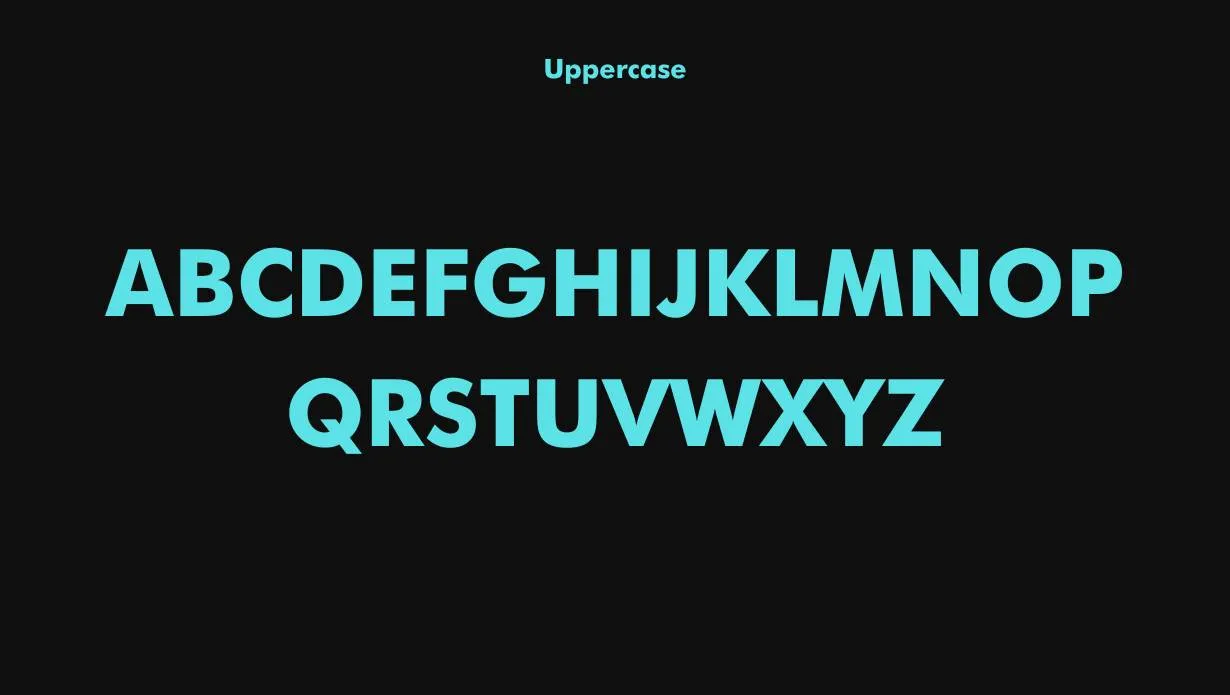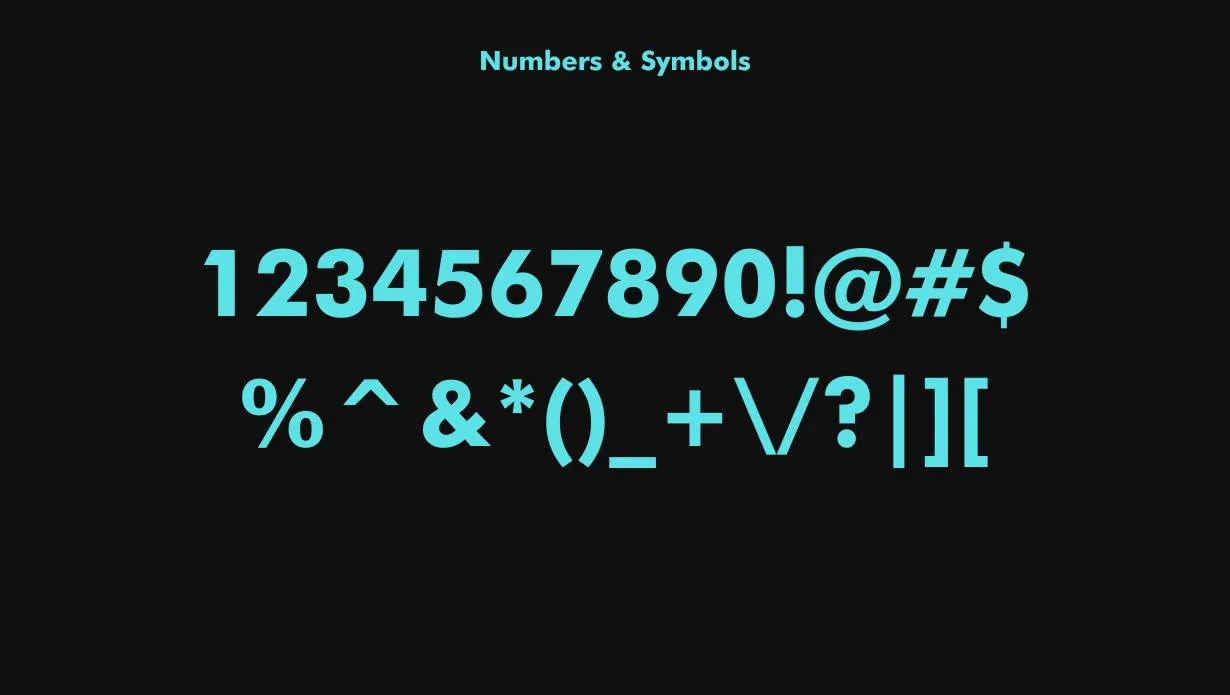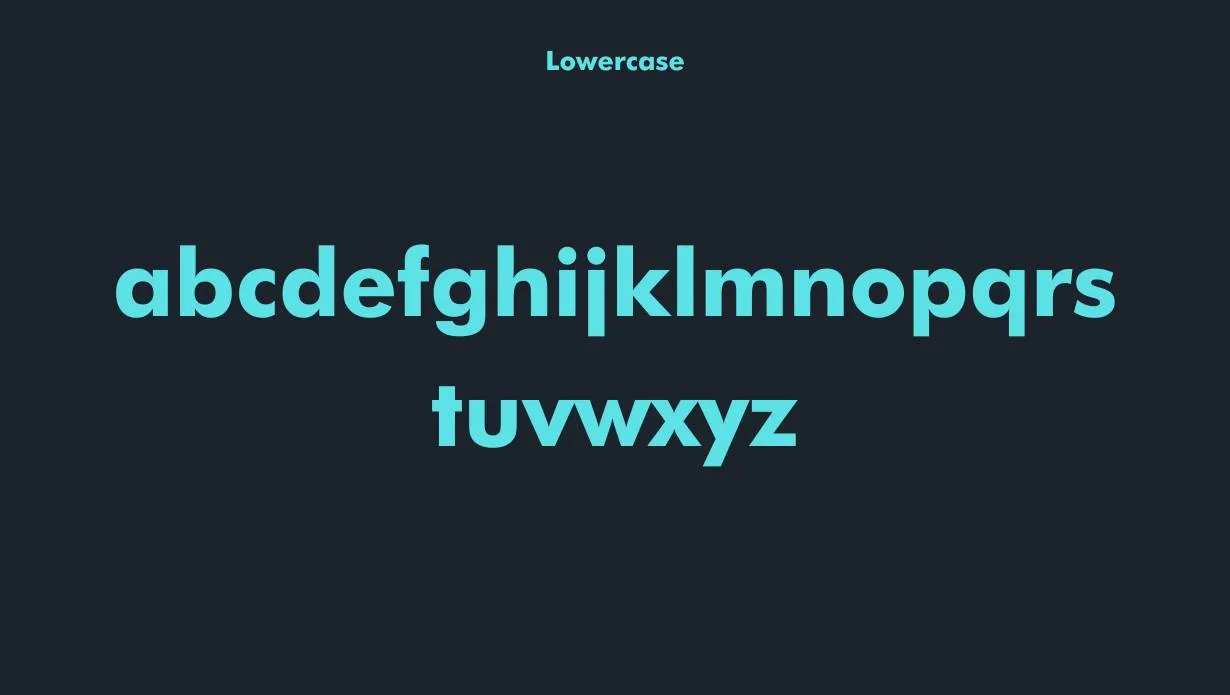
Hulu is a Sans-Serif font with neat and clean features. It has high readability due to its clear look. This font is designed for a TV show VOD (Video in Demand) which was launched in America and became famous all over the world. To make logos of this font designer uses features of Futura MT BT font which was designed by Paul Renner.
It has one regular style and supports many international languages as well. You can also use this typeface for pairing it with other fonts like linik sans font to give a more attractive look to your projects.
It has small letters, capital letters, punctuations, symbols, special characters, and numbers which makes it perfect for use in all projects.